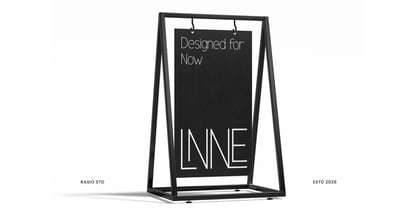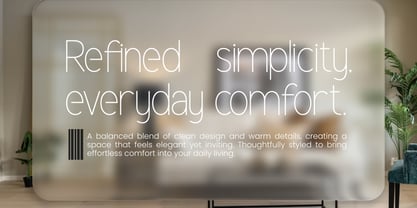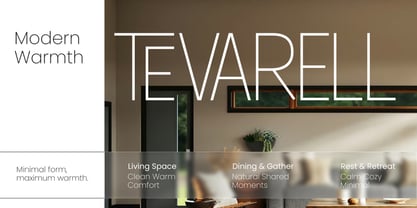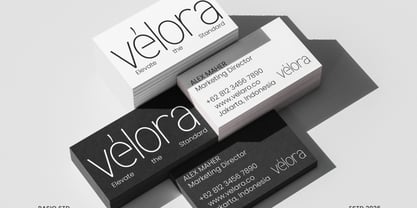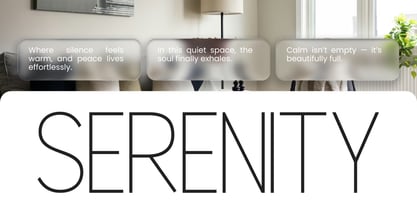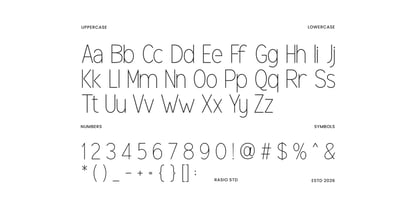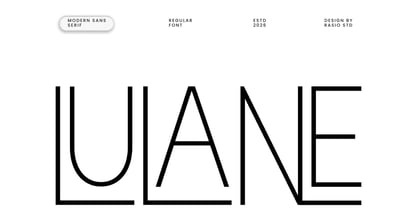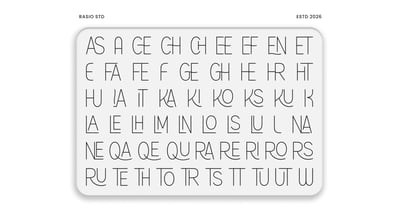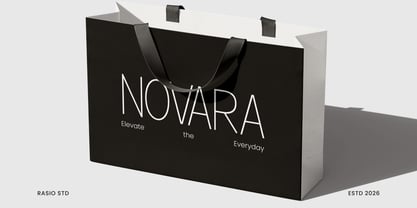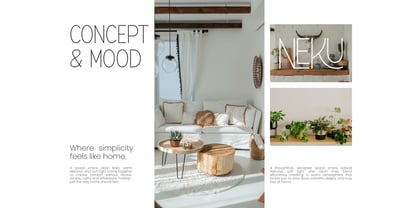
Lulane
by Rasio Studio
The Lulane Font Family was designed by Fajar Indra and published by Rasio Studio. Lulane contains 1 styles. More about this family
Lulane is a modern minimal sans-serif typeface designed with clean lines, balanced proportions, and refined simplicity. Inspired by contemporary architecture and modern interior aesthetics, this font delivers a calm, sophisticated visual tone suitable for professional design projects. Lulane is a modern minimal sans-serif typeface designed with clean lines, balanced proportions, and refined simplicity. Inspired by contemporary architecture and modern interior aesthetics, this font delivers a calm, sophisticated visual tone suitable for professional design projects.
Designers: Fajar Indra
Current Foundry: Rasio Studio